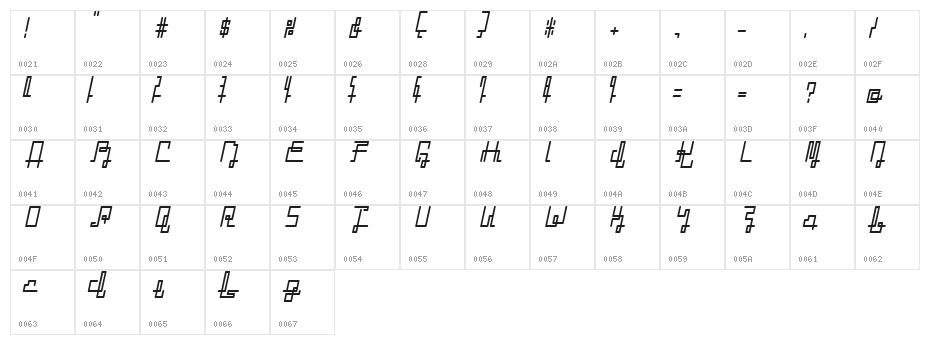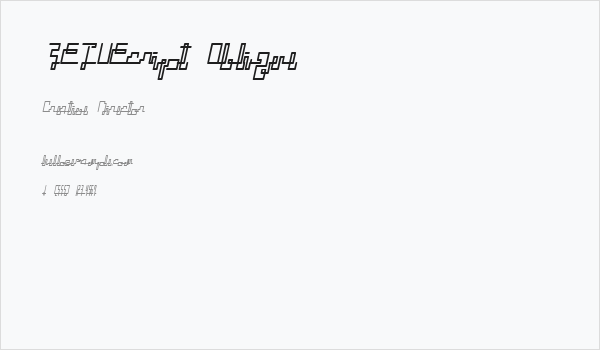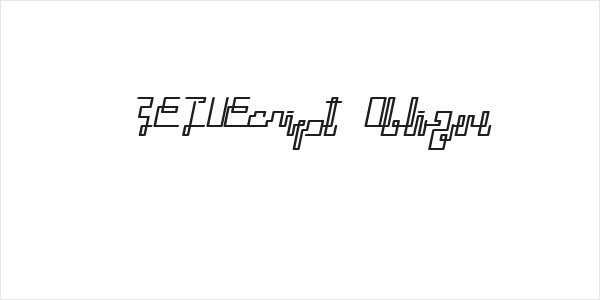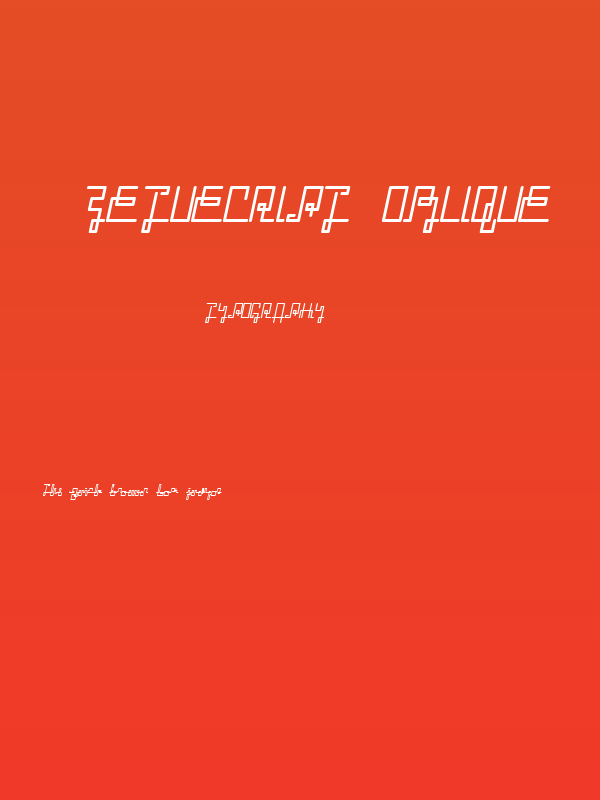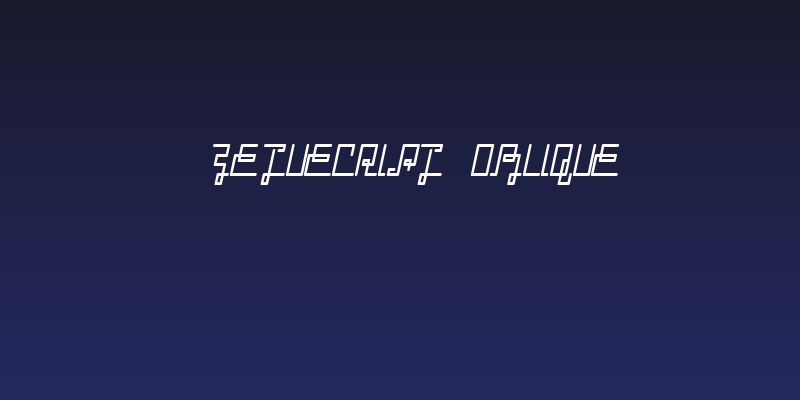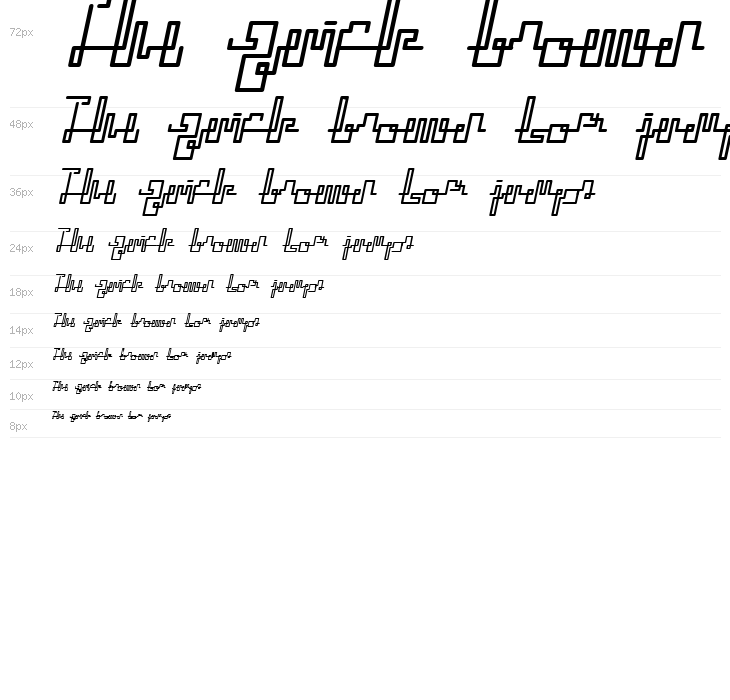
ZETUEcript Oblique Font
ZETUEcript Oblique Description
This font features a unique, geometric design with an oblique orientation, giving it a dynamic and futuristic appearance. The characters are composed of straight lines and sharp angles, creating a maze-like pattern that is both intriguing and challenging to read. The uppercase and lowercase letters maintain a consistent height, contributing to a uniform look across the text. The numerals and special characters follow the same design principles, ensuring cohesion throughout. The overall style is highly decorative, making it suitable for creative and experimental projects.
| Overall Style | Futuristic, Decorative |
| Use Case | Logos, Posters, Album covers |
| Proposed Projects | Ideal for sci-fi themed designs, digital art projects, and modern branding that seeks a distinctive and avant-garde look. |